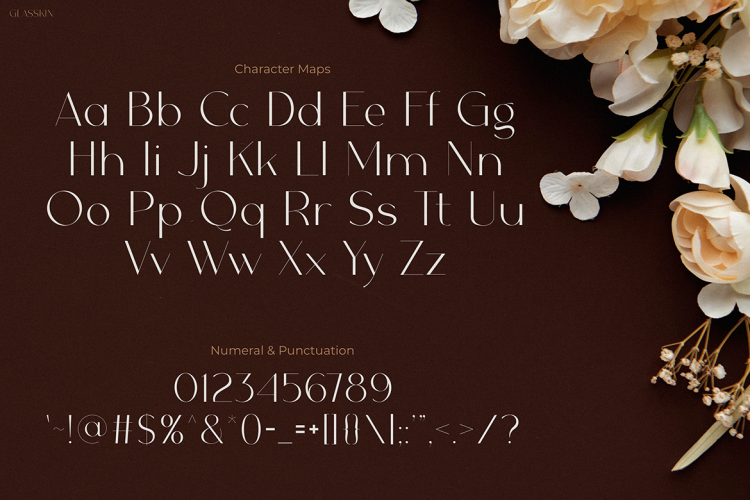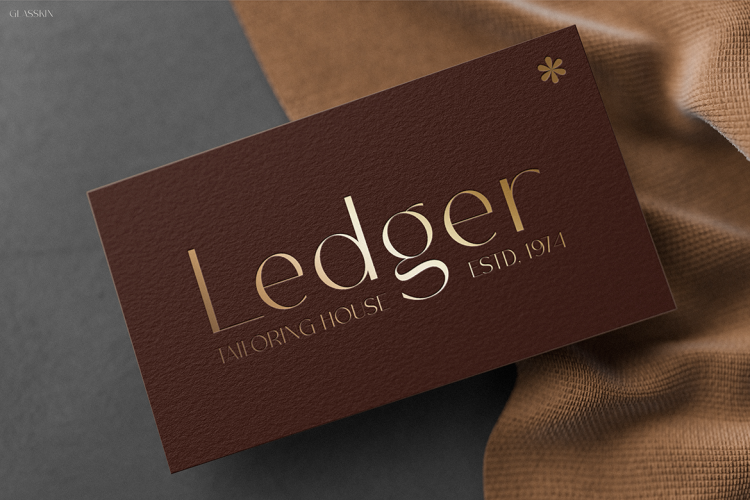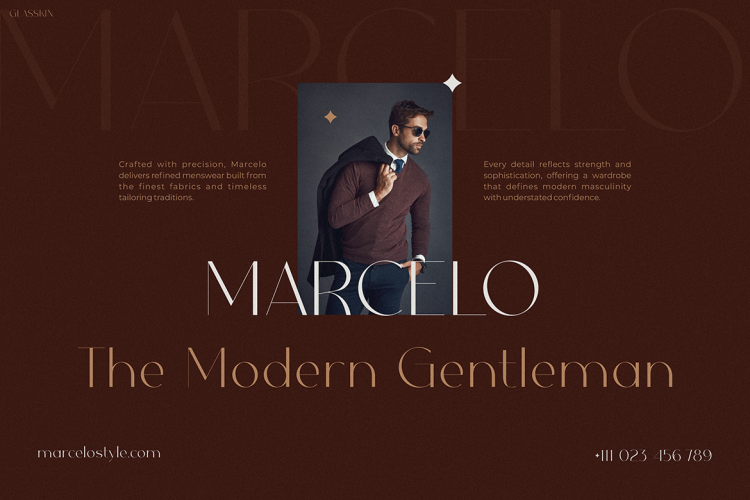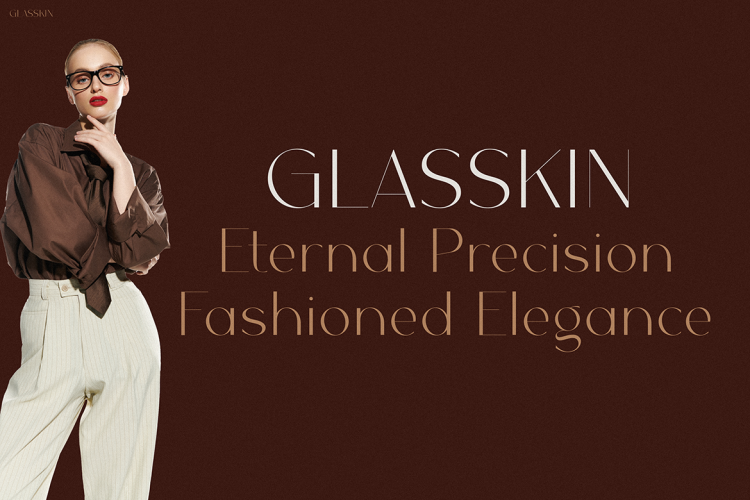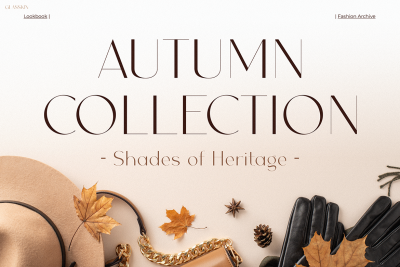
Timeless Elegance, Modern Precision, Instagram-Ready Charm
Instagram Font Glasskin is not just another typefaceโit is a masterpiece of elegance and precision. Inspired by modern glass aesthetics, this font delivers clean lines, smooth curves, and a sophisticated structure. As a result, every word looks polished and professional. Its style blends luxury with minimalism, which makes it stand out in any creative project. Moreover, the refined design ensures it feels chic, fresh, and fashion-driven. With Glasskin, your words do not just appearโthey shine with confidence and class.
Because of its timeless charm, Glasskin elevates design instantly. It looks modern; however, it never loses touch with classic beauty. This duality makes it unique and versatile. In addition, the balance of sharp precision and elegant flow creates a premium look that works in both bold and subtle contexts. Therefore, designers find it an essential tool for branding, digital design, and editorial projects alike.
Instagram Font Glasskin Perfect For
Instagram Font Glasskin is crafted for fashion designers, influencers, creative agencies, luxury brands, and digital marketers. It works beautifully for high-end product branding, lookbooks, lifestyle campaigns, or Instagram stories. In addition, it adapts seamlessly to magazine layouts, invitations, packaging, and advertisements. If you are building a modern brand identity, this font ensures your visuals remain stylish and memorable.
Content creators also benefit from its elegant versatility. For example, influencers can use it to polish their feeds, while businesses can strengthen their visual identity. On the other hand, agencies can apply it across client campaigns to maintain consistency and sophistication. For this reason, Glasskin is the perfect solution for anyone aiming to project authority, luxury, and timeless style.
Instagram Font Glasskin is more than a fontโit is a statement of taste and vision. It gives your projects elegance, clarity, and a fashionable edge. Furthermore, it transforms ordinary text into something unforgettable. By choosing Glasskin, you do not just add typeโyou create impact. Get Instagram Font Glasskin today and let your designs shine with timeless beauty.